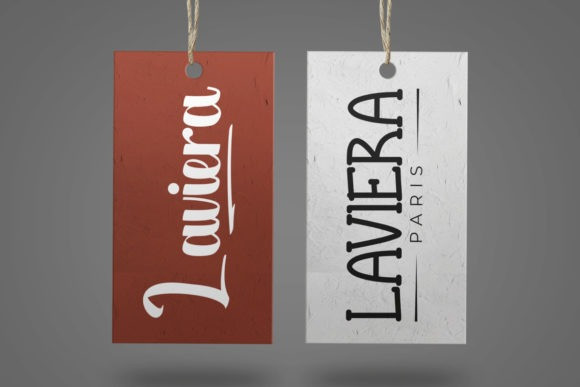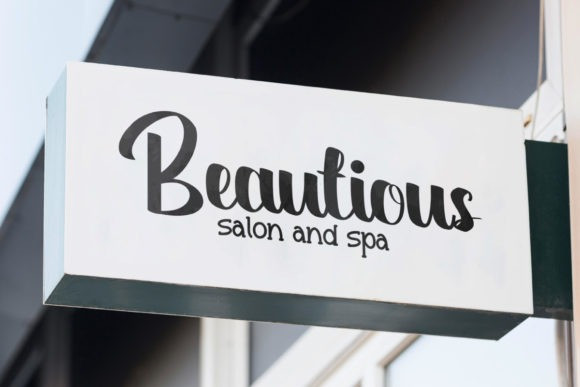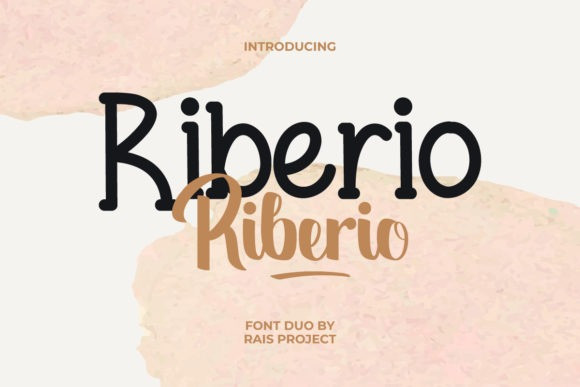
Riberio Font
Riberio Font consists of two shandwritten styled fonts designed to complement each other perfectly. Together or apart, these fonts are ideal for adding a chic and cheery touch to your crafts. This font is PUA encoded which means you can access all glyphs and swashes with ease!